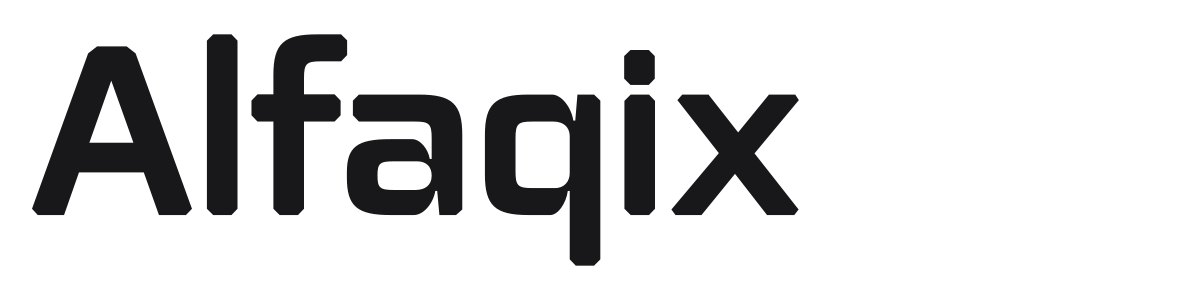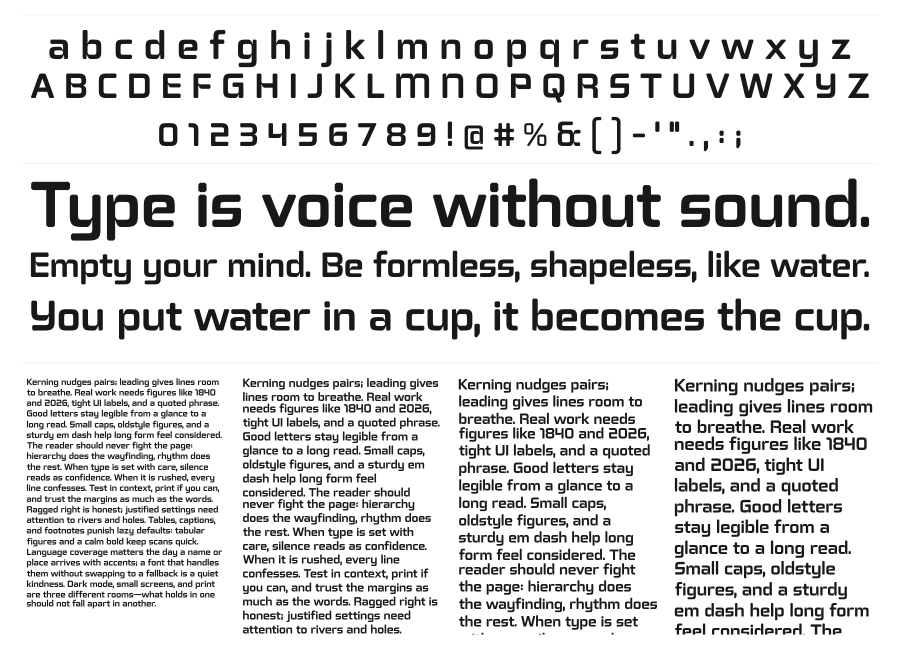
Alfaqix
Alfaqix is a bold geometric sans from Typodermic Fonts built around squared forms and heavily rounded terminals that evoke LCD panels and digital dashboards. Characters are wide and assertive, with a large x-height and near-monoweight strokes that keep things crisp at display sizes. It draws openly from Y2K-era futurism and data-display aesthetics, making it a natural choice for tech branding, game graphics, and motion work.